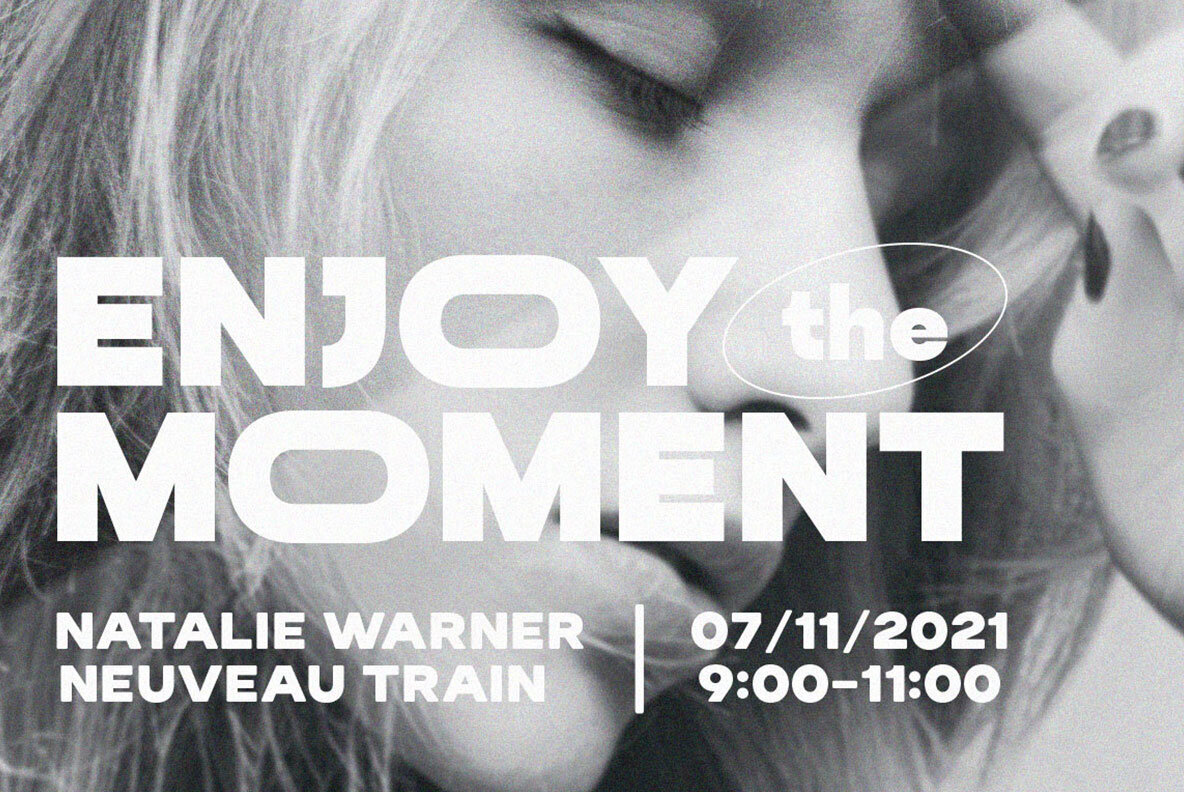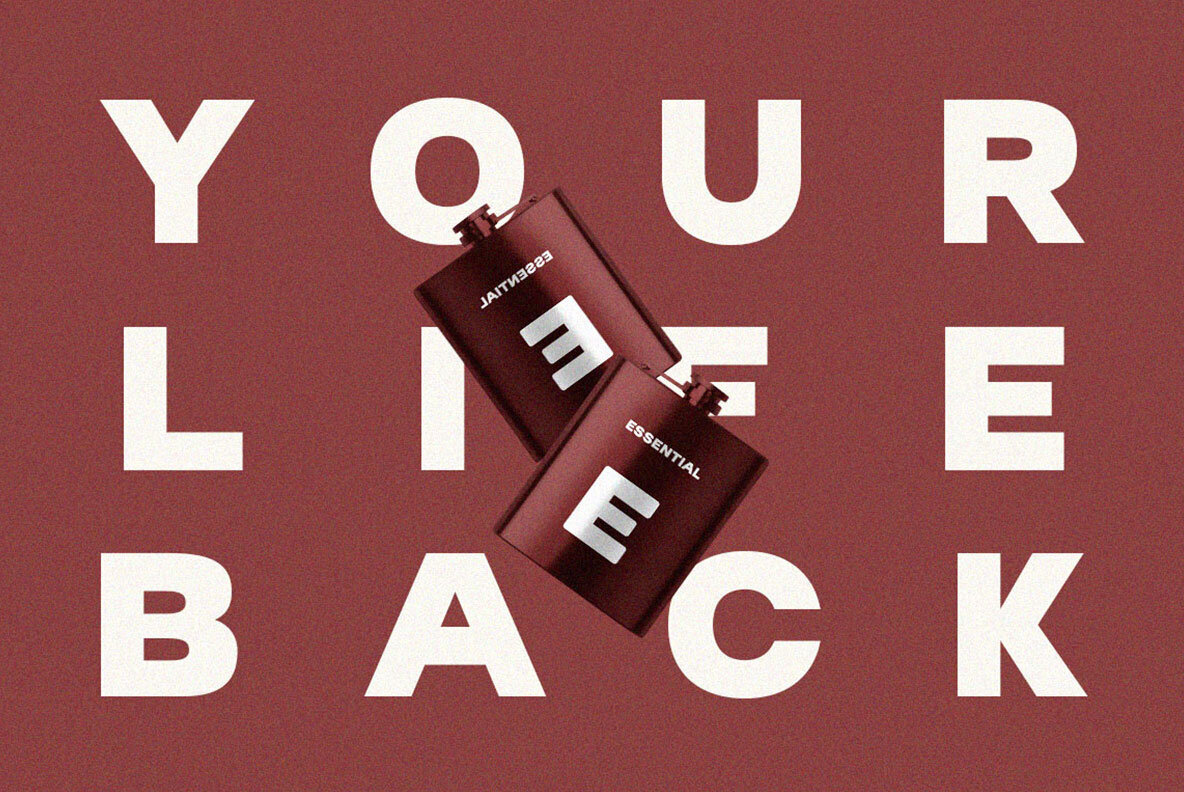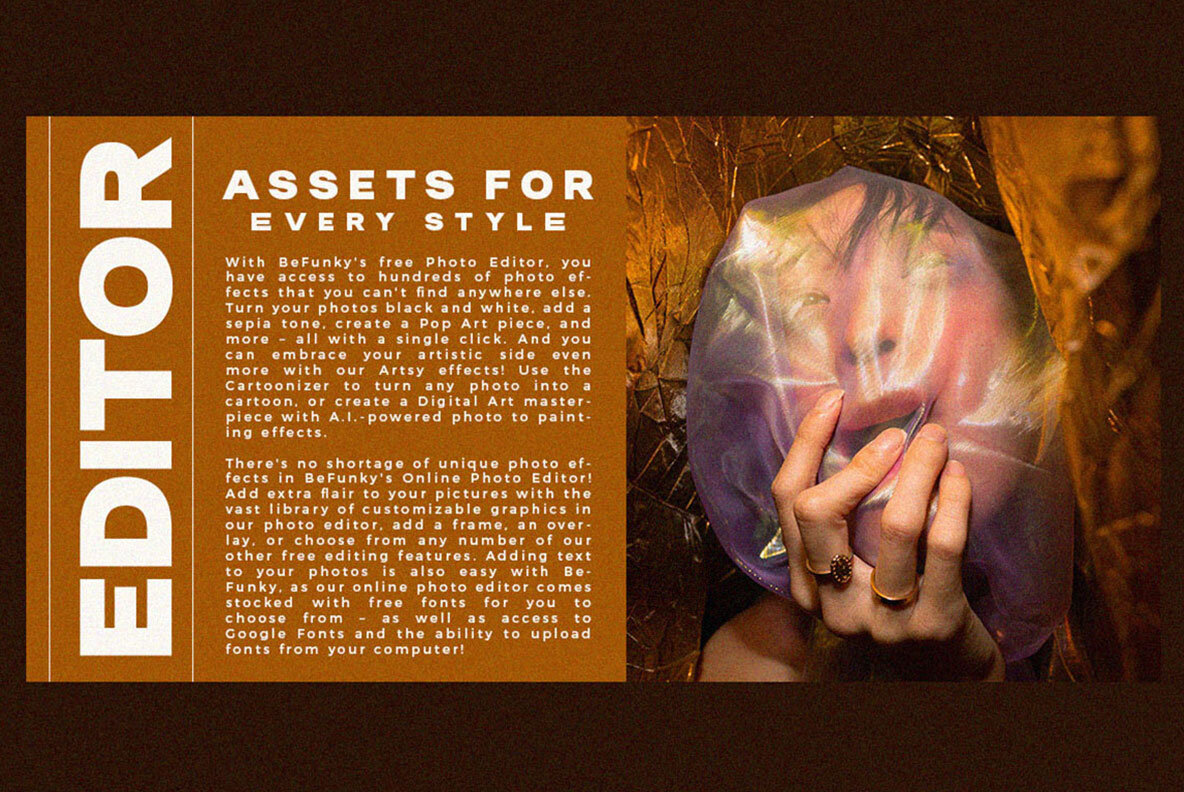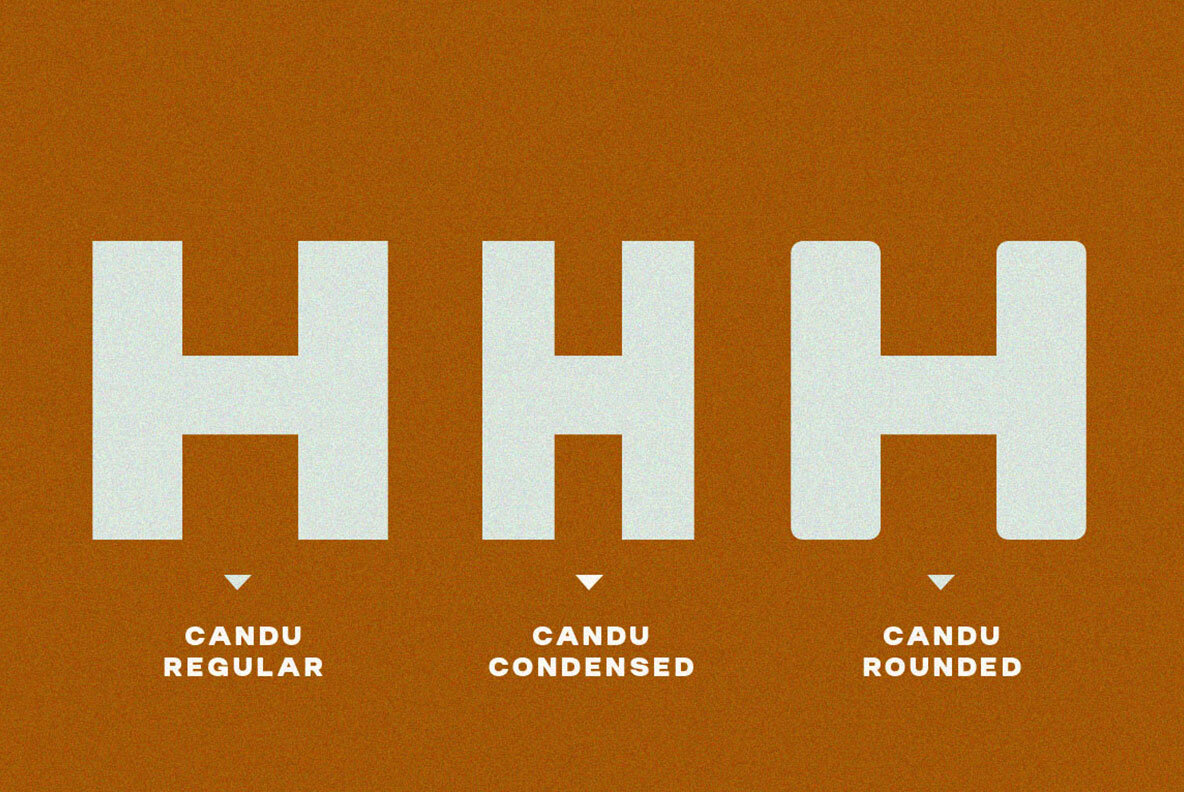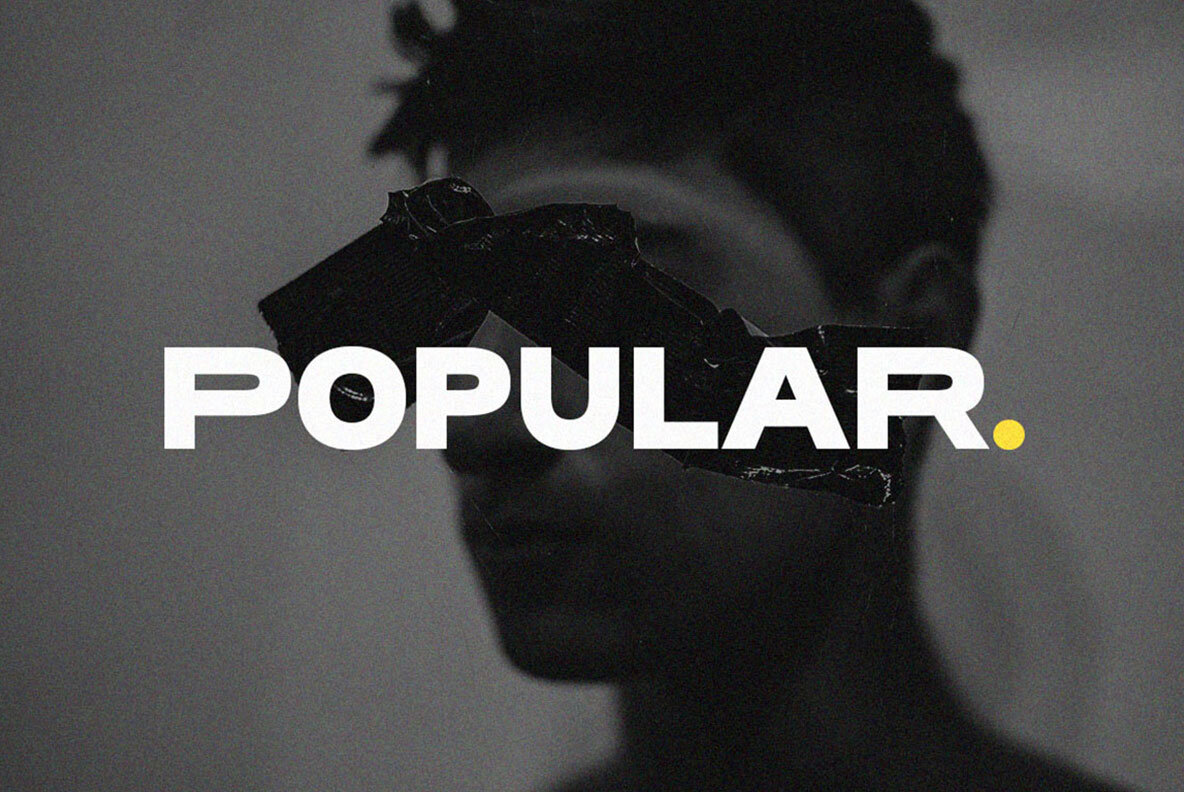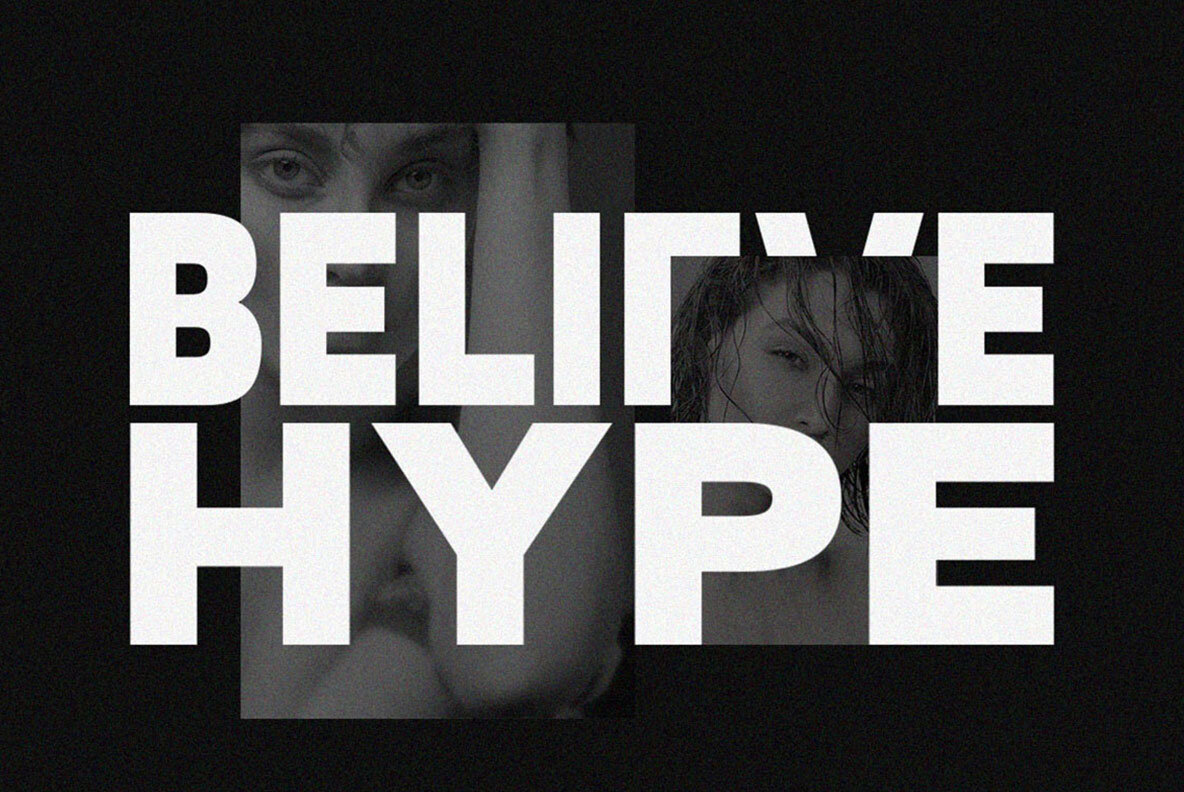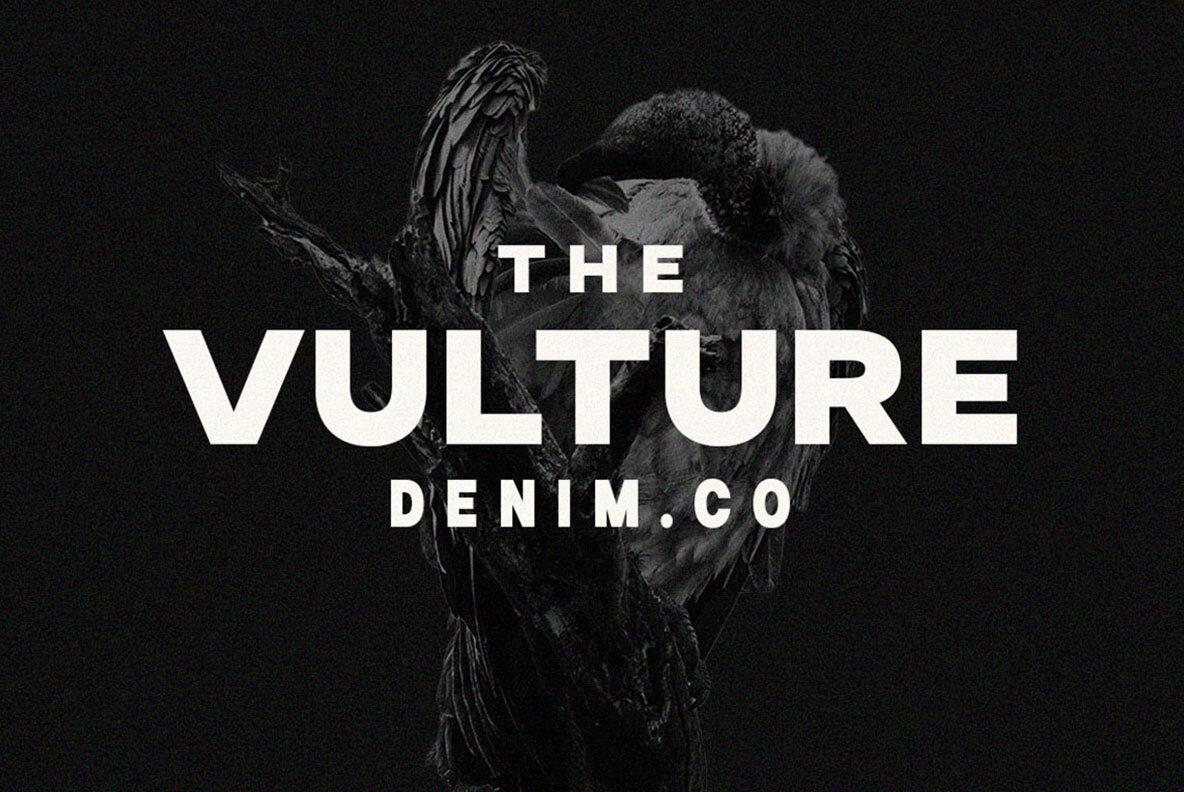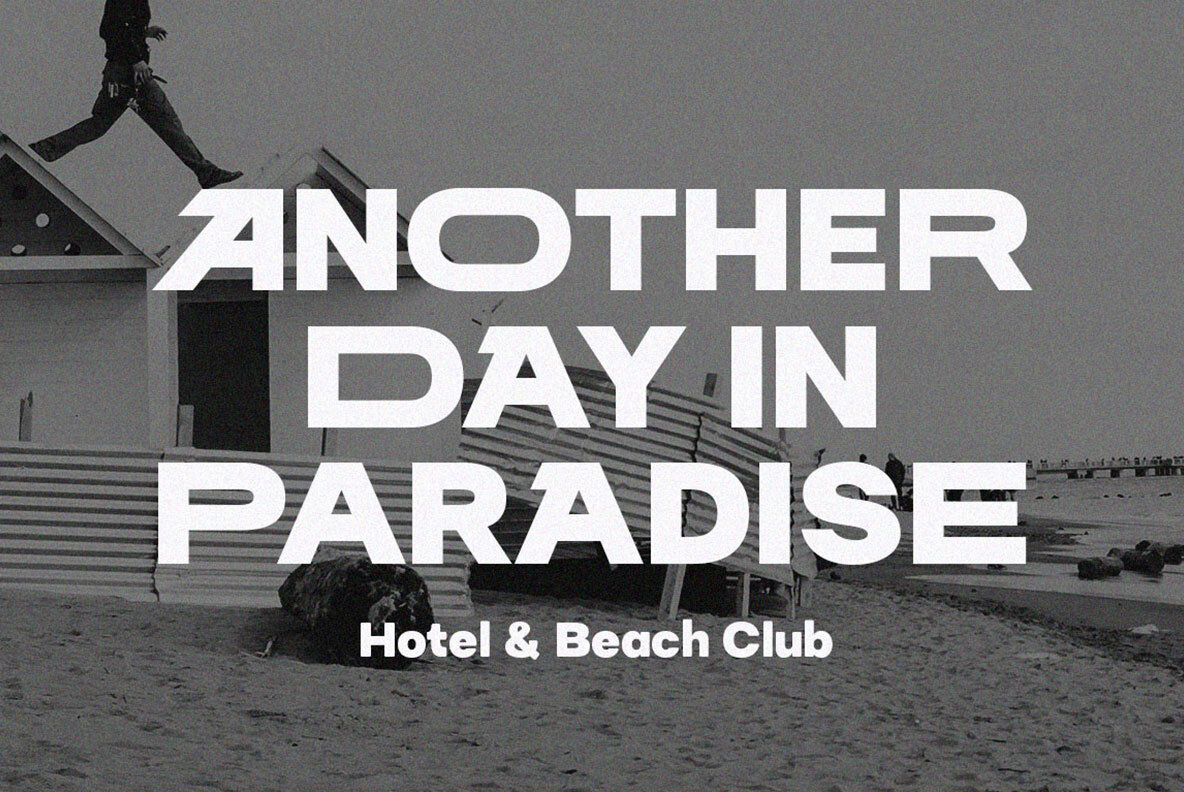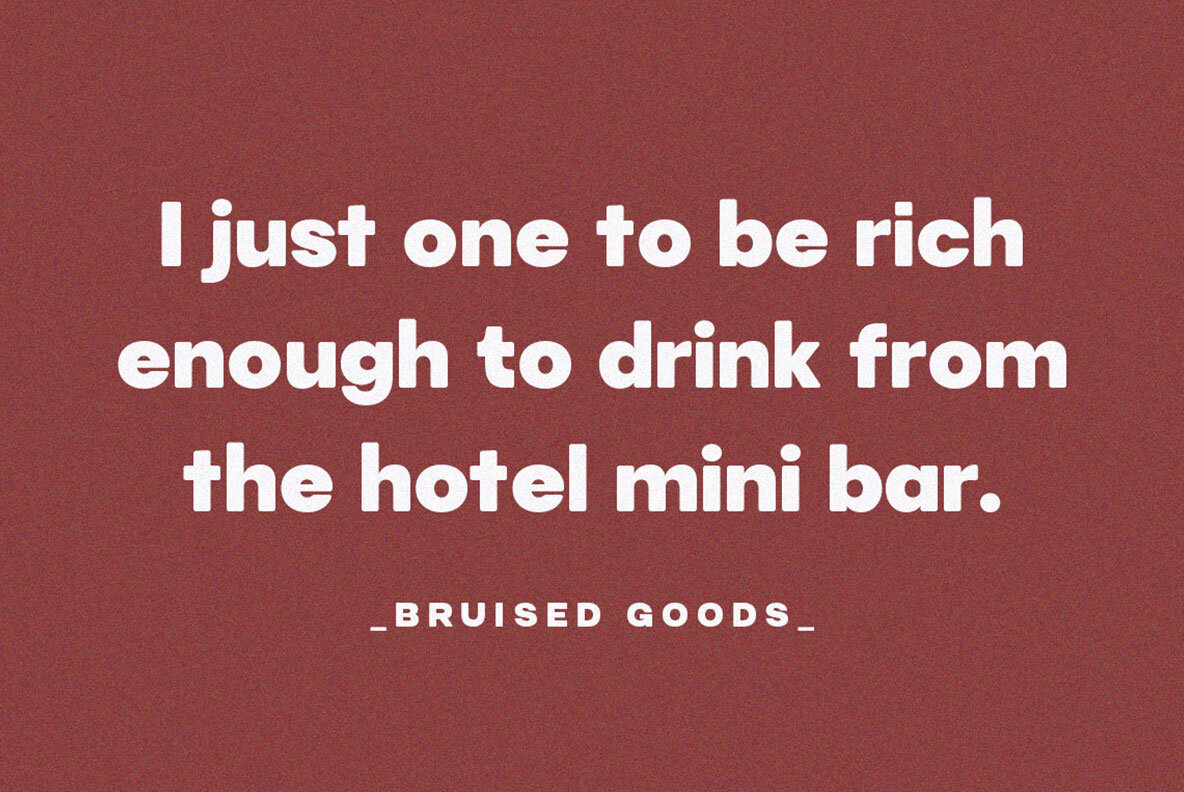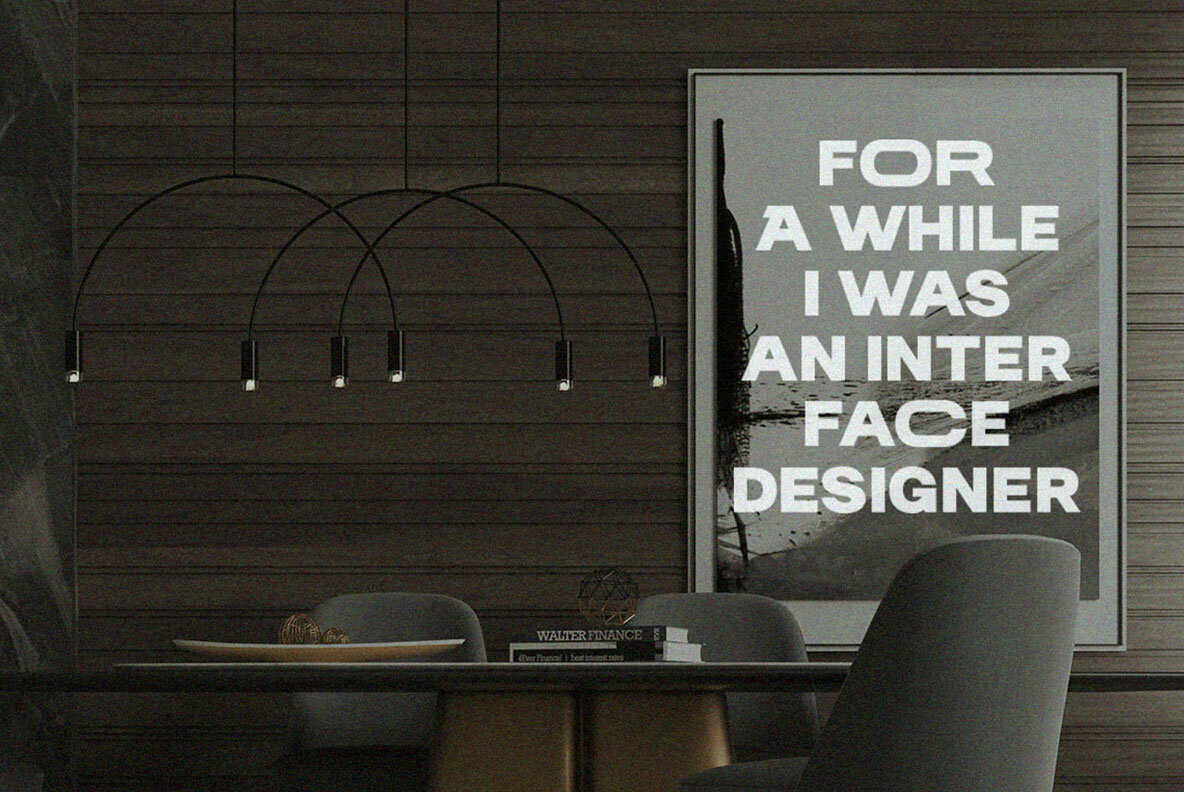
Candu Font
Candu emerges as a powerful sans serif font designed to invigorate your creative projects. With its solid lines and harmonious curves, it offers an artistic touch ideal for diverse applications. Perfectly suited for logotypes, signage, branding, apparel, and more, Candu stands out in both digital and print formats.Candu: A Strong and Bold Sans Serif
Elevate your design pursuits with the Candu font family, a heartfelt creation designed for effortless elegance in every project.